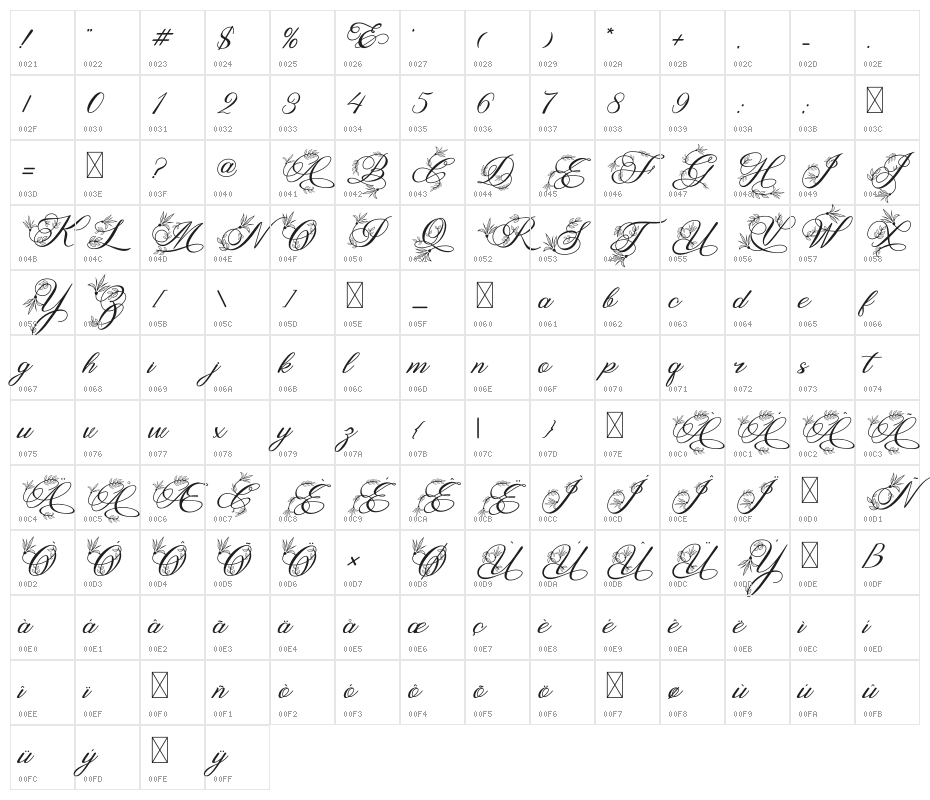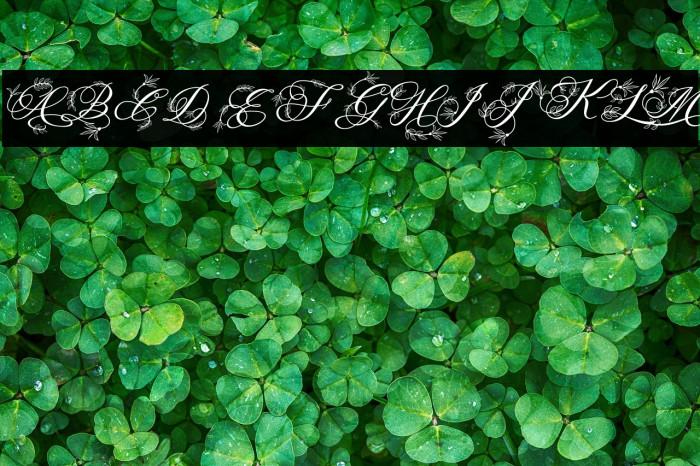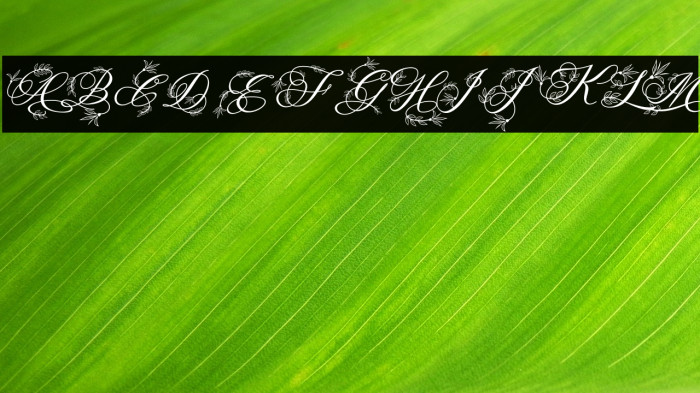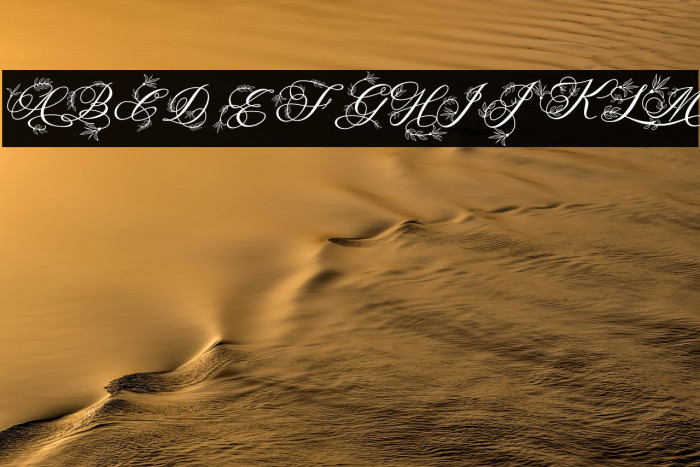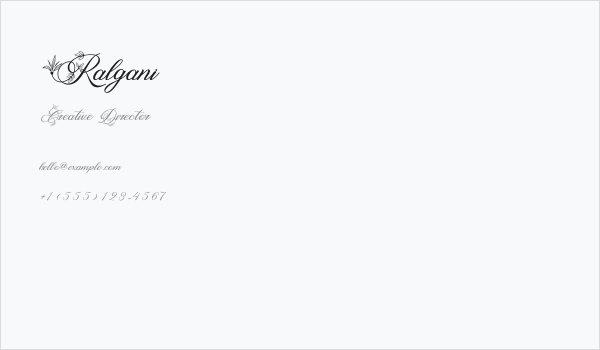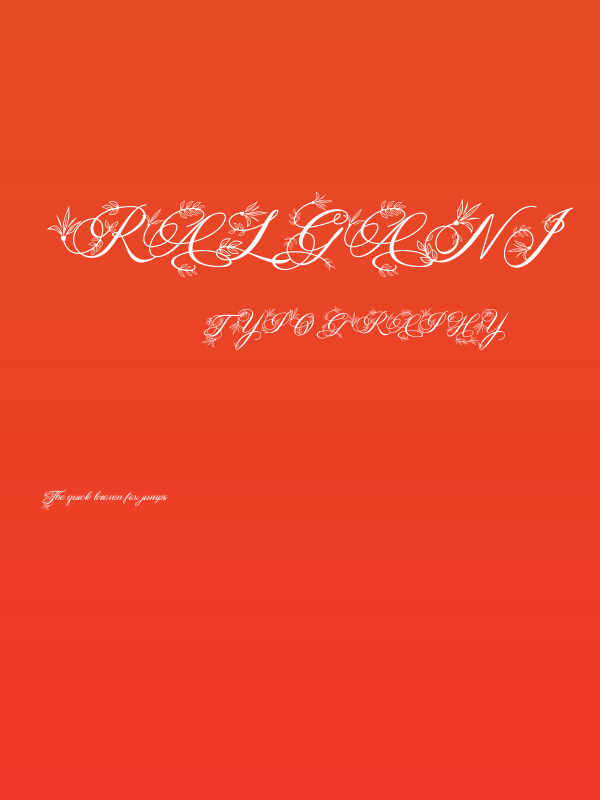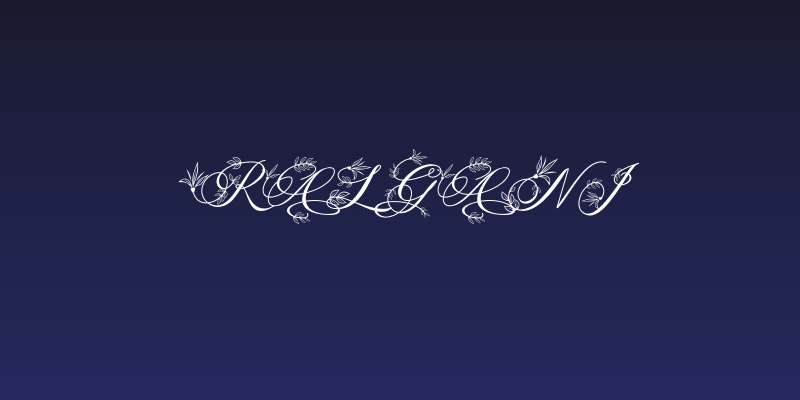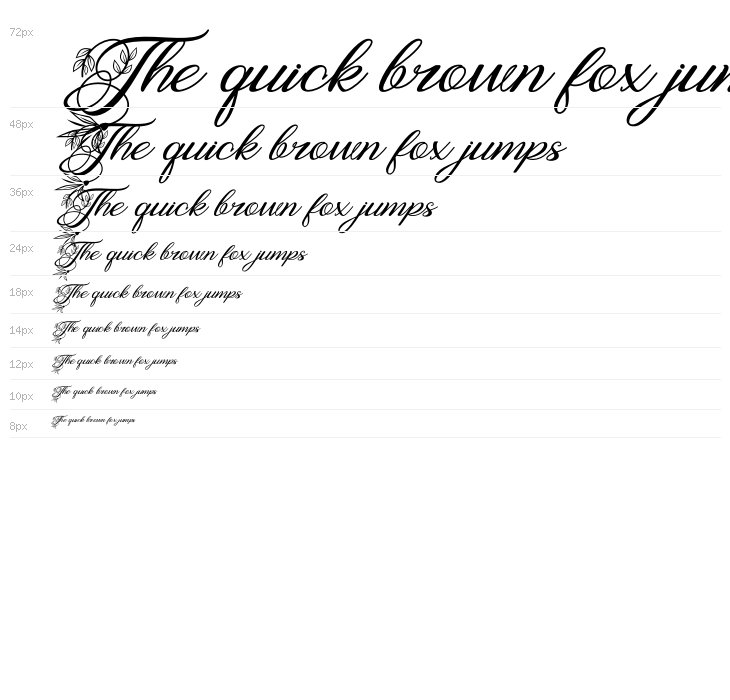
Ralgani Font
Ralgani Description
This elegant script font features a sophisticated and ornate design, with uppercase letters adorned with intricate floral embellishments. The lowercase letters maintain a smooth, flowing style that exudes grace and fluidity. The numerals and special characters are crafted with the same attention to detail, making them suitable for decorative purposes. The font's high contrast in stroke thickness enhances its readability while maintaining an artistic flair. Its overall style is both classic and decorative, making it ideal for projects that require a touch of elegance and refinement.
| Proposed Projects | Ideal for wedding invitations, luxury branding, greeting cards, and decorative headings. |